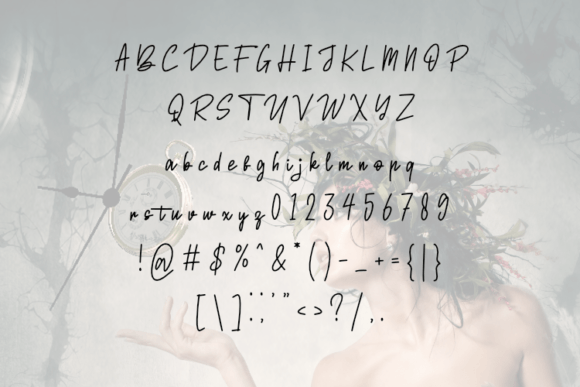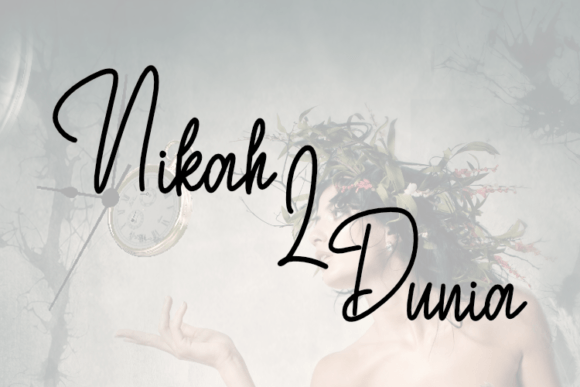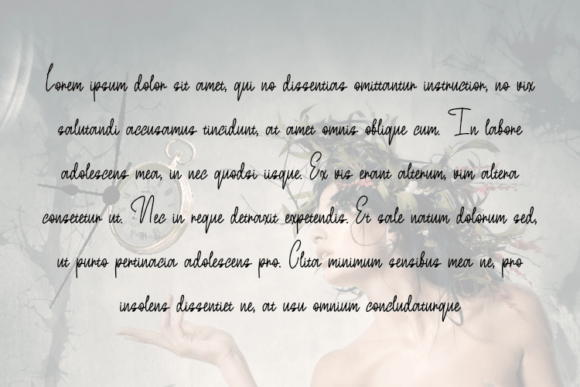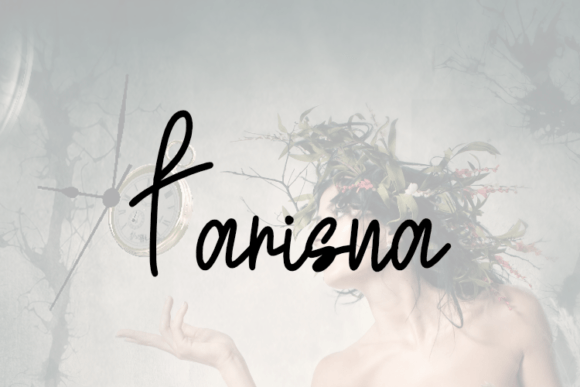
Unlocking Creative Potential: The Farisna Font Revolution
In the realm of design, typography plays a pivotal role in conveying messages, evoking emotions, and creating lasting impressions. For designers and crafters seeking to elevate their work with a distinctive touch, the Farisna font emerges as a game-changer. This versatile typeface is not just a font; it’s a creative companion that brings a unique, tailor-made flair to any design project. In this article, we’ll dive into the artistic versatility of Farisna, its applications, and why it has become the ultimate choice for designers looking for that extra special something.
The Artistic Versatility of Farisna
Farisna is more than just a collection of letters; it’s an artistic statement. Its design is meticulously crafted to offer a wide range of expressions, making it suitable for various design needs. Whether you’re working on a branding project, a clothing line, or a t-shirt design, Farisna provides the perfect blend of elegance and playfulness. Its unique characteristics allow designers to infuse their creations with a personality that stands out in a crowded market.
Elevate Your Designs with Farisna
When it comes to clothing and t-shirt designs, the font used can make or break the aesthetic appeal. Farisna offers a refreshing alternative to traditional fonts, allowing designers to create visually stunning and highly marketable products. By incorporating Farisna into your designs, you can:
- Add a touch of sophistication and elegance
- Convey a sense of creativity and uniqueness
- Enhance the overall visual appeal of your designs
- Create products that resonate with your target audience
Seamless Adaptability: The Farisna Advantage
Why Choose Farisna?
For designers and crafters looking for a versatile typography solution, Farisna ticks all the right boxes. Here are a few reasons why Farisna has become the go-to font for creatives:
- Unique Aesthetic: Farisna offers a distinctive look that sets it apart from more traditional fonts.
- Versatility: Suitable for a wide range of design projects, from digital to print.
- Customization: Allows for a high degree of customization to fit your brand’s voice.
Step into the World of Farisna
Redefining your design aesthetics with Farisna is a straightforward process. By integrating this versatile font into your projects, you can instantly elevate the quality and appeal of your work. Whether you’re a professional designer or a hobbyist crafter, Farisna offers a world of creative possibilities at your fingertips.
Farisna is not just a font; it’s a creative tool that unlocks new possibilities for designers and crafters. Its artistic versatility, combined with seamless adaptability and a unique aesthetic, makes it an indispensable asset in the world of design. By choosing Farisna, you’re not just selecting a typeface; you’re embracing a design philosophy that prioritizes creativity, uniqueness, and aesthetic appeal. Step into the world of Farisna today and discover a new dimension of design possibilities.